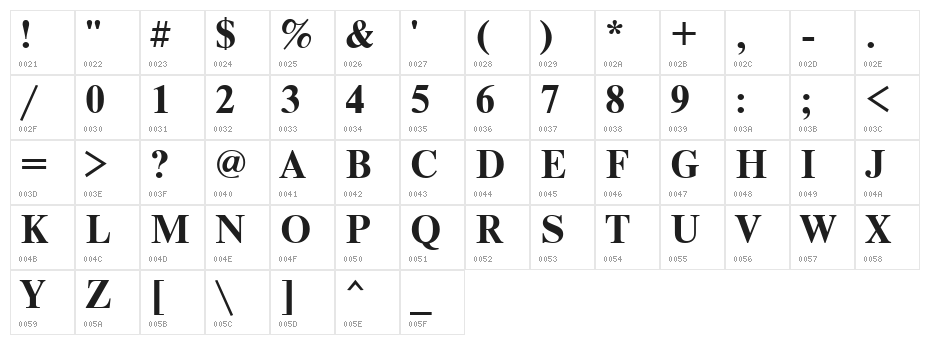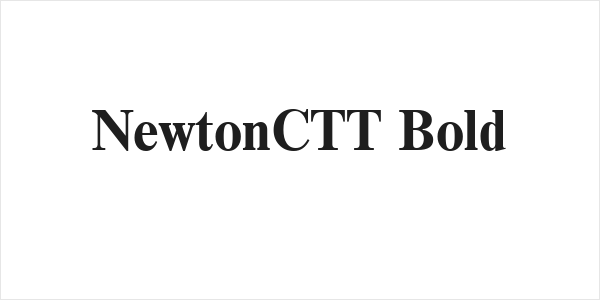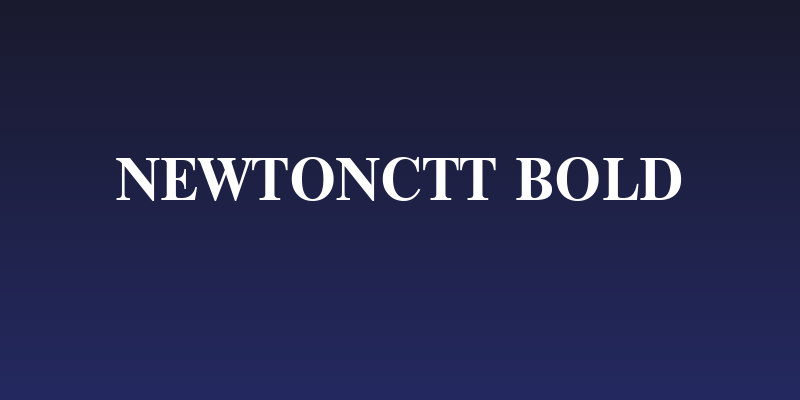
NewtonCTT Bold Font
NewtonCTT Bold Description
This font exhibits a bold and authoritative presence, characterized by its strong serif design. The strokes are thick and consistent, providing a sense of stability and confidence. The uppercase letters are particularly striking, with sharp serifs and a balanced proportion that enhances readability. The lowercase letters maintain a classic style, with smooth curves and a slight contrast in stroke thickness that adds elegance. Numbers are clear and robust, ensuring they stand out in any context. The special characters are well-integrated, maintaining the overall aesthetic of the font. This font is ideal for making a bold statement while retaining a touch of classic sophistication.
| Proposed Projects | Ideal for headlines, book covers, branding materials, and editorial design. |